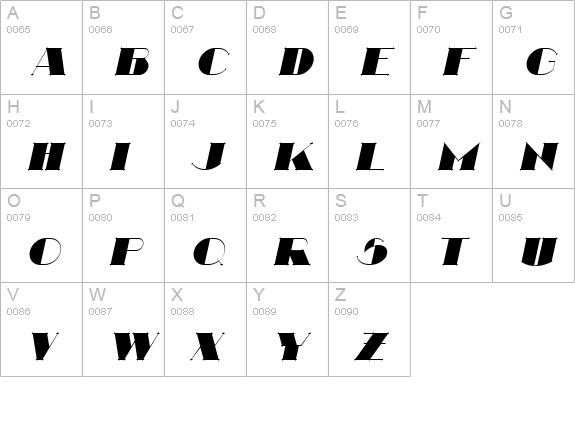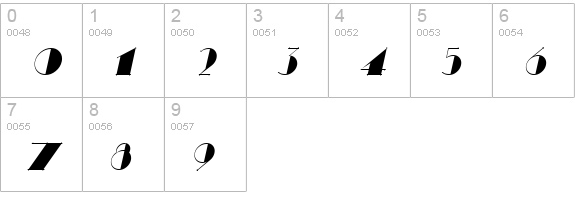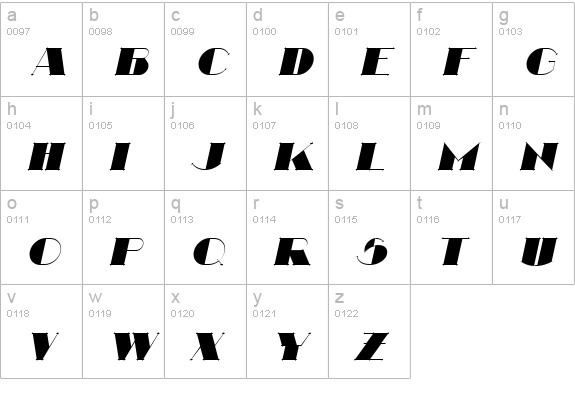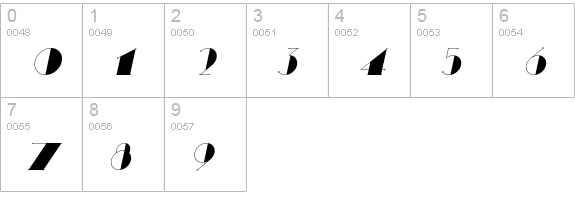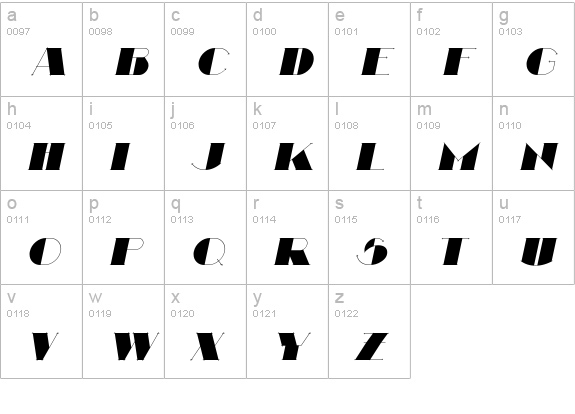
Nathan Italic Font Details
Nathan Italic is a distinctive, italic variant in the Nathan typeface family \xE2\x80\x94 well suited to design and typography projects.
Nathan Italic is a sleek and modern font that exudes elegance and sophistication. With its delicate curves and stylish appearance, Nathan Italic is perfect for adding a touch of refinement to any design project. Whether you're creating invitations, branding materials, or social media graphics, this font will elevate your work to the next level. The best part? Nathan Italic is available for free at FontsMarket.com. Simply download this exquisite font and start using it in your projects today. Don't miss out on the opportunity to enhance your designs with the beauty and charm of Nathan Italic.